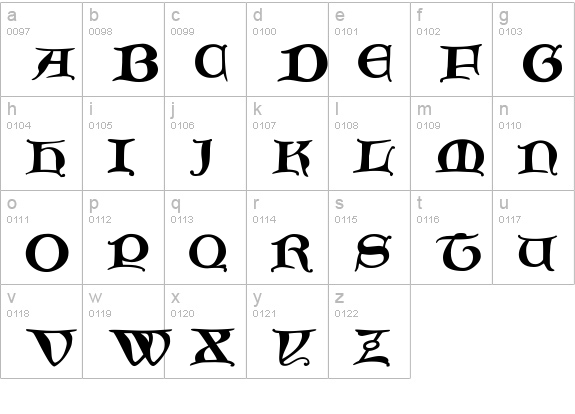
CaxtonInitials.fog font is a stunning and elegant typeface that exudes sophistication and class. With its intricate details and timeless appeal, this font is perfect for adding a touch of luxury to your design projects. The ornate initials are beautifully crafted, making them ideal for use in titles, headings, and other decorative elements. What's more, CaxtonInitials.fog font is available for free download at FontsMarket.com. This means you can easily access this exquisite font and use it in your personal or commercial projects without any cost. Don't miss out on the opportunity to elevate your designs with this luxurious and captivating typeface. Download CaxtonInitials.fog font today and add a touch of elegance to your creations.